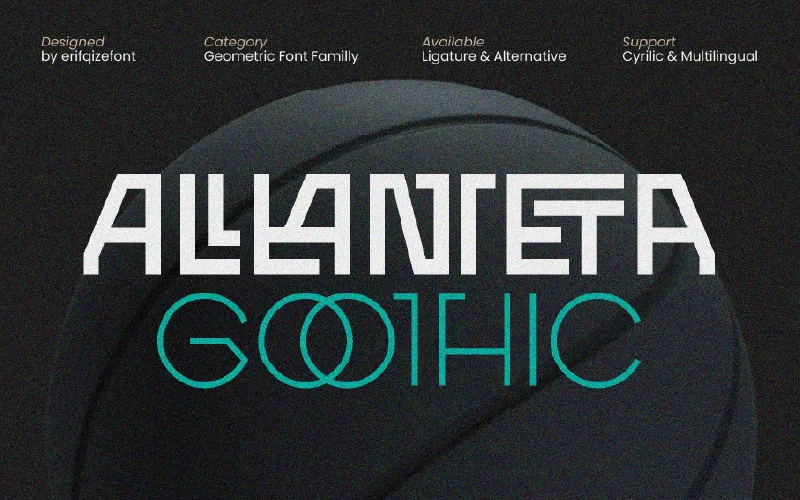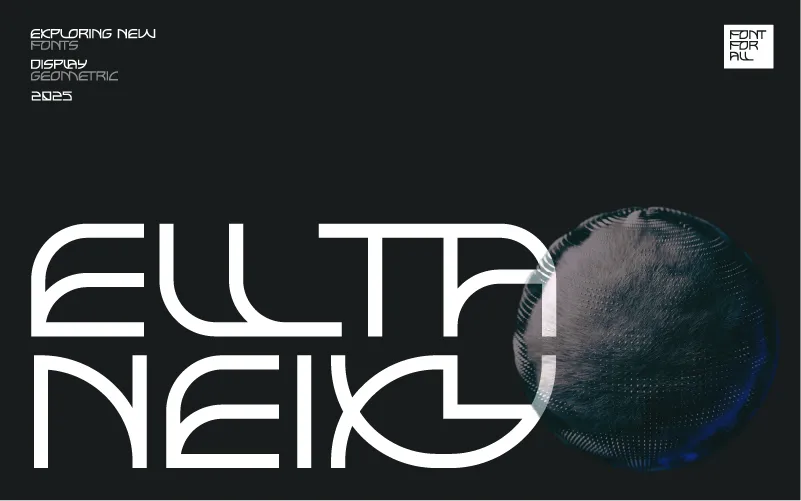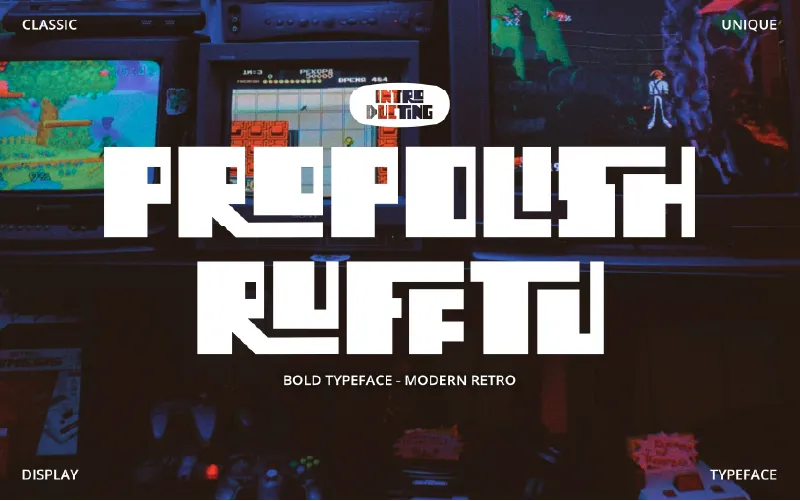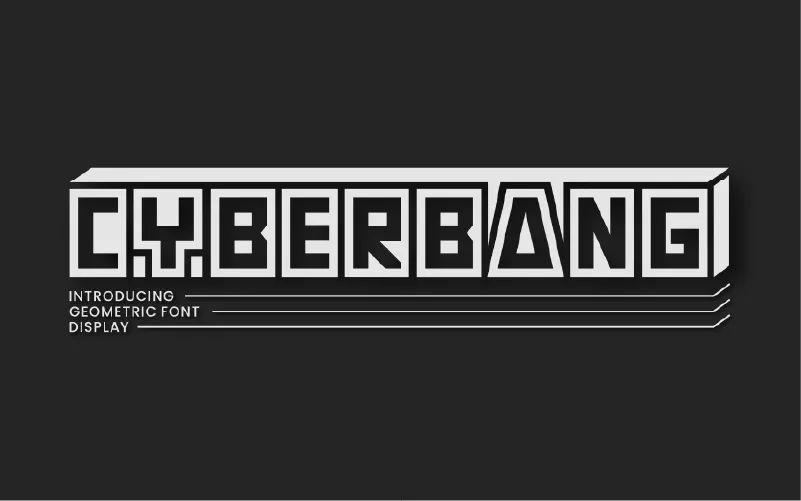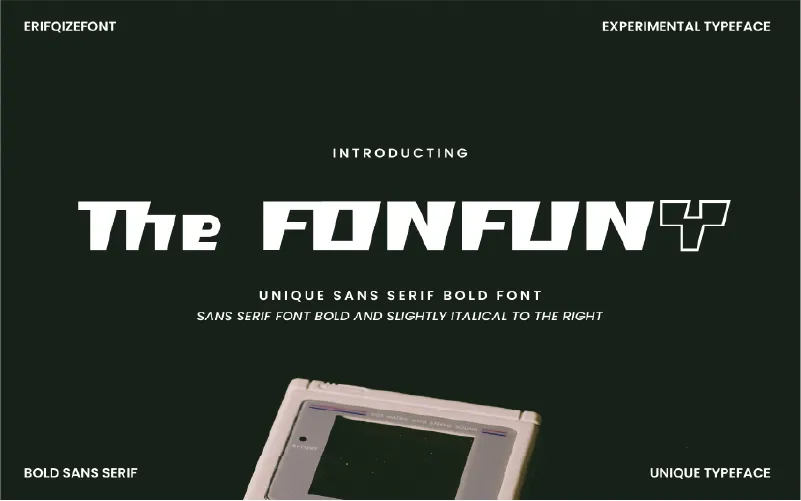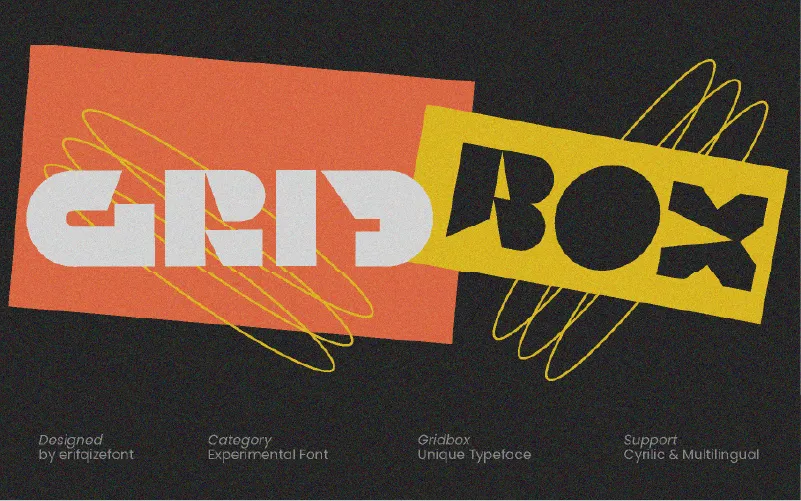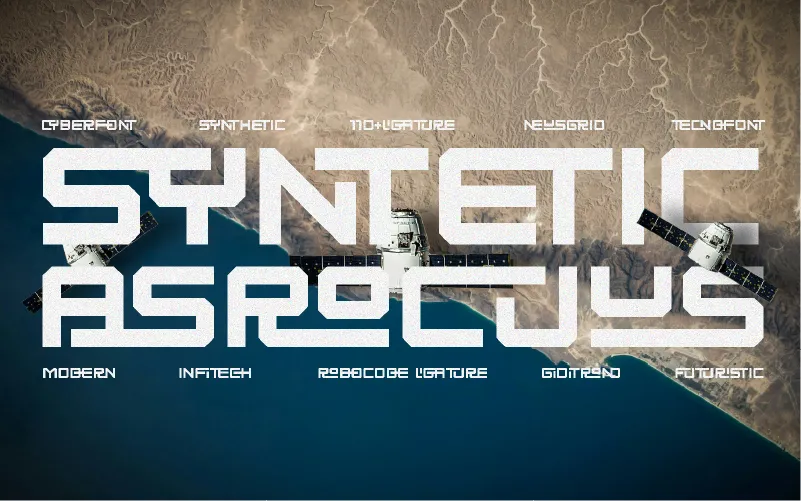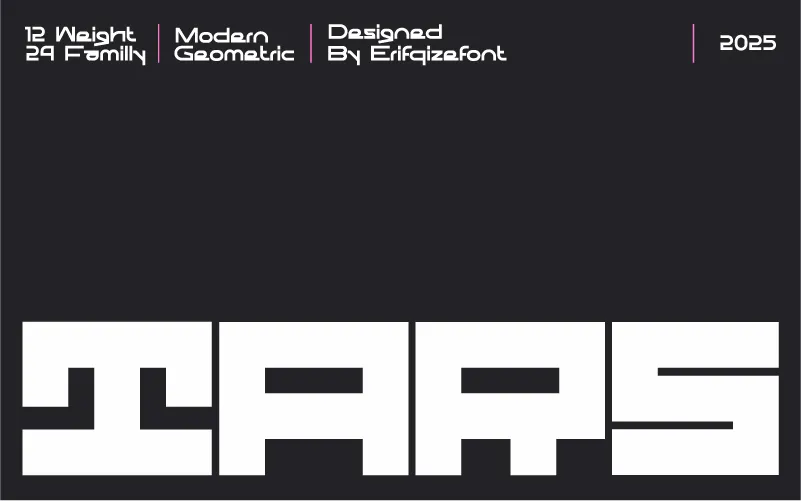
Bring a professional edge to your creative projects & refine your visual identity with –
Sans Serif Typefaces Bundle
These sans-serif fonts blend minimal, modern, futuristic, gothic, & experimental aesthetics.
They include stylistic alternates and ligatures, allowing you to customise your typography to match any mood or project.
These Sans Serif Fonts Are Ideal For:
- Advertising & Marketing
- Branding & Logo Design
- Digital Projects
- Editorials & Magazines
- Posters & Graphic Art
- Print & Screen Applications
- Social Media Graphics
- UI/UX Design
- 9 Sans Serif Font Families
- Support Multiple Languages: Basic Latin Multilingual Support
- Special Characters Included: Full Uppercase & Lowercase, Numerals, Punctuation, Alternates, & Ligatures
- Styles Of Fonts Included: Minimal, Modern, Futuristic, Gothic, & Experimental
A Preview Of Sans Serif Typefaces Bundle:
Cyberbang Font
Elltaneixy Font
ERF Alanteta Goothic
ERF NEOT
ERF TARS
GRIDBOX
Propolish Rufftu
SynteticAsrocuus
The Fontfuny